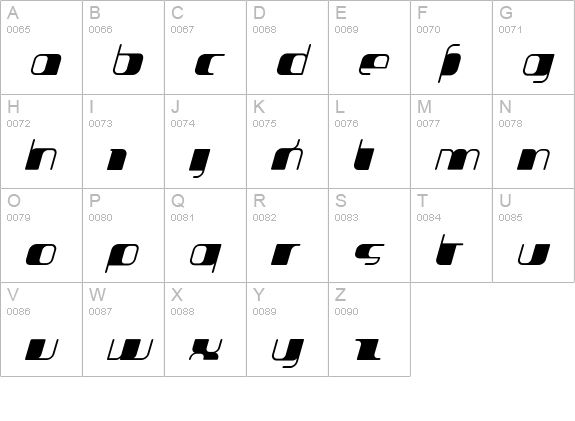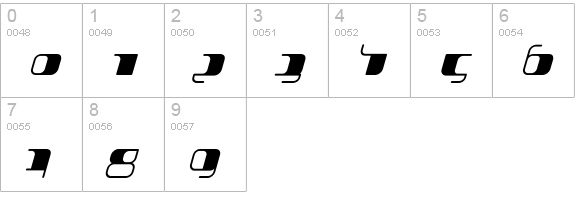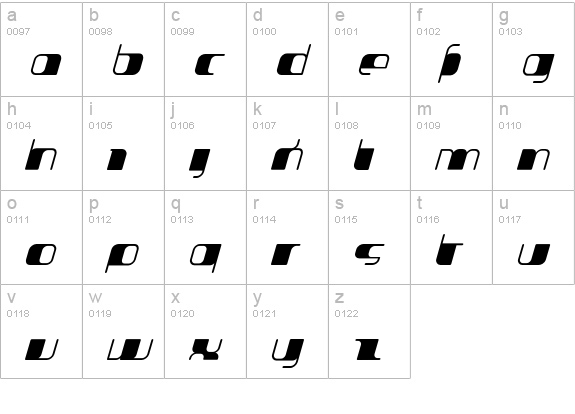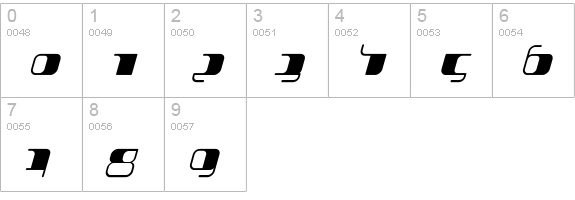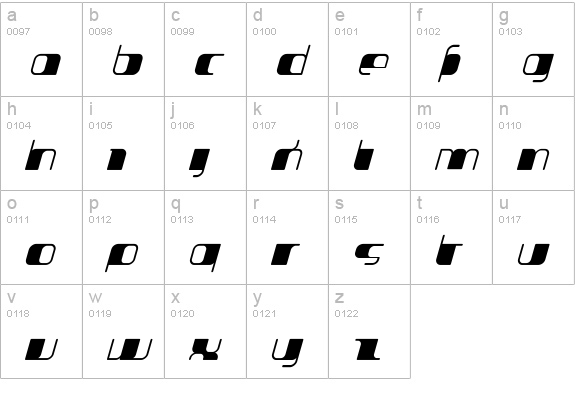
Introducing Jakone-ExtendedBoldItalic, a stunningly stylish and versatile font that is sure to make a bold statement in any design project. This font effortlessly combines the elegance of an extended typeface with the added flair of bold and italic styles, creating a truly eye-catching and unique typography option. With its exquisite curves, sophisticated letterforms, and strikingly bold appearance, Jakone-ExtendedBoldItalic is perfect for capturing attention and adding a touch of sophistication to your designs. Whether you're creating a logo, designing a poster, or crafting a magazine layout, this font will elevate your work to new heights. What makes Jakone-ExtendedBoldItalic even more appealing is that it is available for free. Yes, you read that right – this exceptional font can be freely downloaded at FontsMarket.com. This means that you can enhance your designs with the utmost quality without having to spend a penny. Not only is Jakone-ExtendedBoldItalic visually stunning, but it also offers exceptional legibility and readability. Its carefully crafted letterforms ensure that every word is clear and easy to read, making it an excellent choice for both digital and print projects. Whether you're a professional designer or a typography enthusiast, Jakone-ExtendedBoldItalic is a must-have addition to your font collection. Its versatility and visual appeal make it suitable for a wide range of applications, from branding and advertising to web design and packaging. So why wait? Experience the beauty and power of Jakone-ExtendedBoldItalic for yourself by downloading it for free at FontsMarket.com. Unlock a world of design possibilities and effortlessly elevate your projects with this exquisite font.